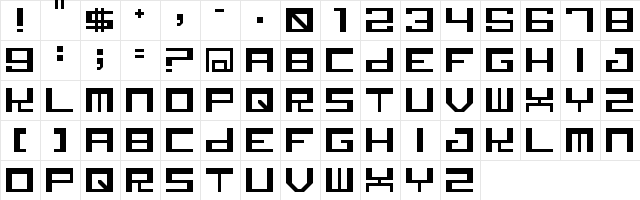
Canid Regular
| Designer | Sreekumar M |
Design Context for Canid Typeface
Canid takes a measured approach to typography — its balanced proportions and neutral character make it a reliable workhorse for both digital and print work.